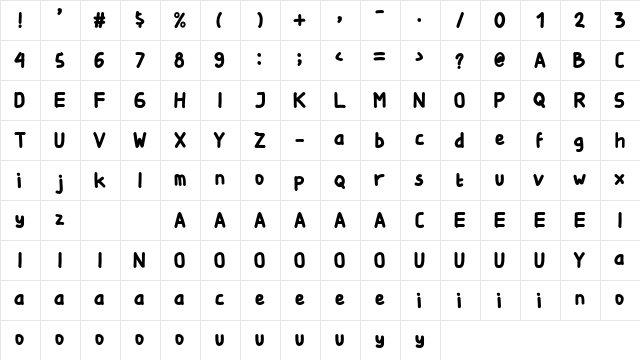
Bellfoods Regular
| Designer | Mohamad Rois Ngainul Yakin & Muhammad Bagus P |
Design Context for Bellfoods Typeface
Bellfoods is a composed and adaptable typeface that performs quietly and consistently across a wide range of design contexts.